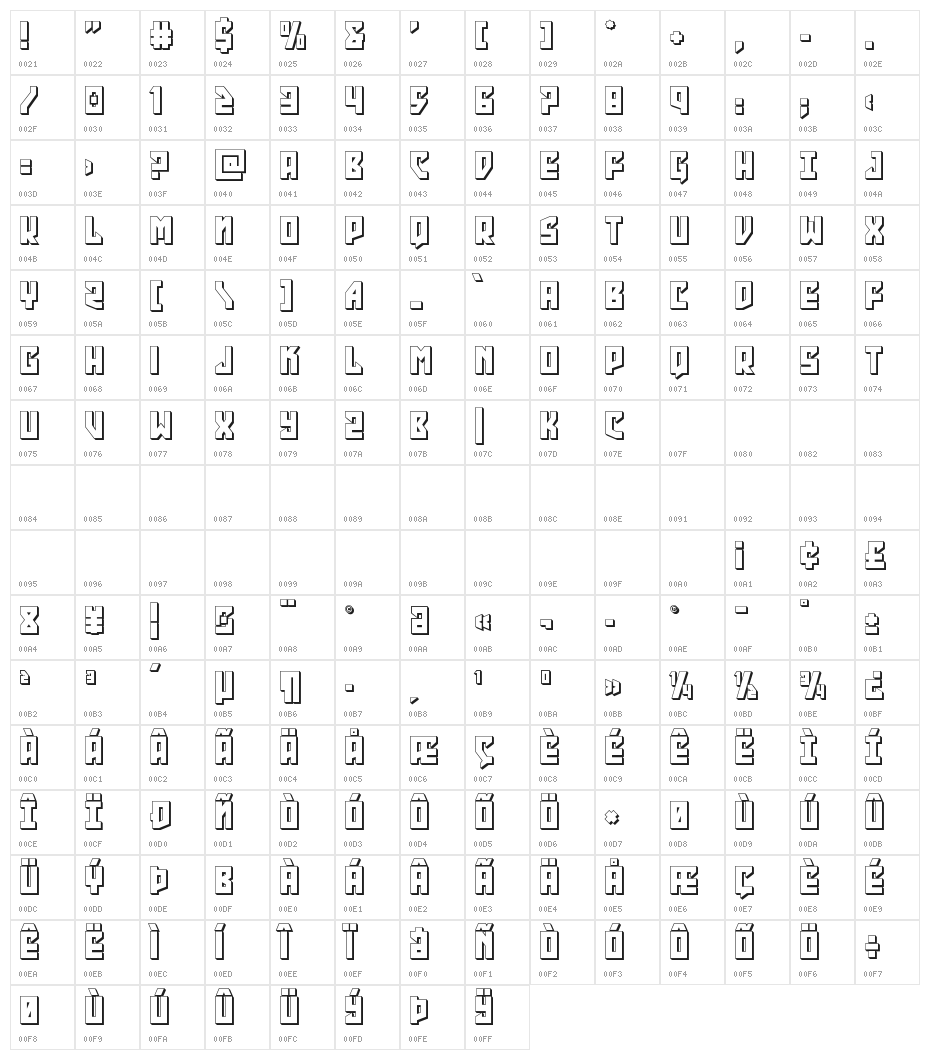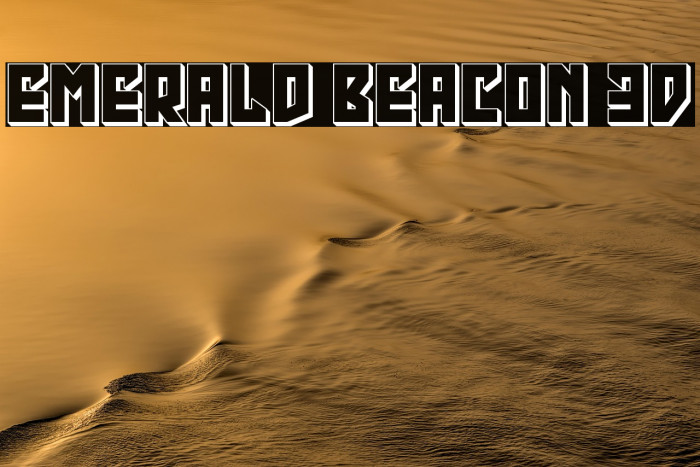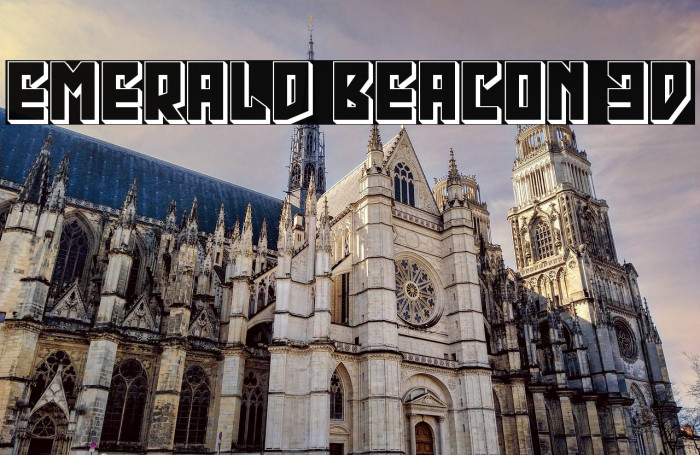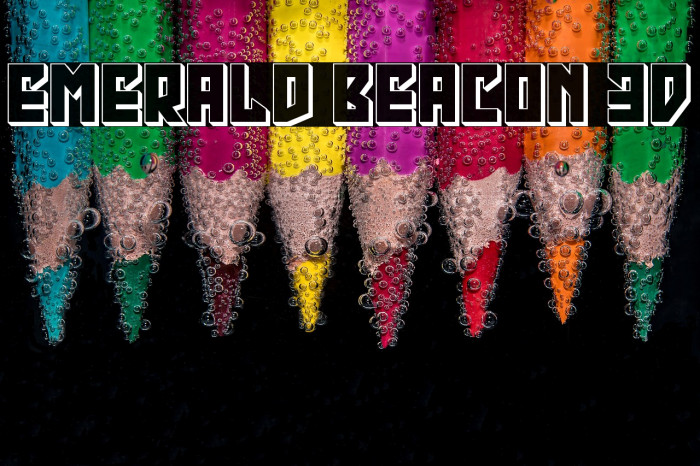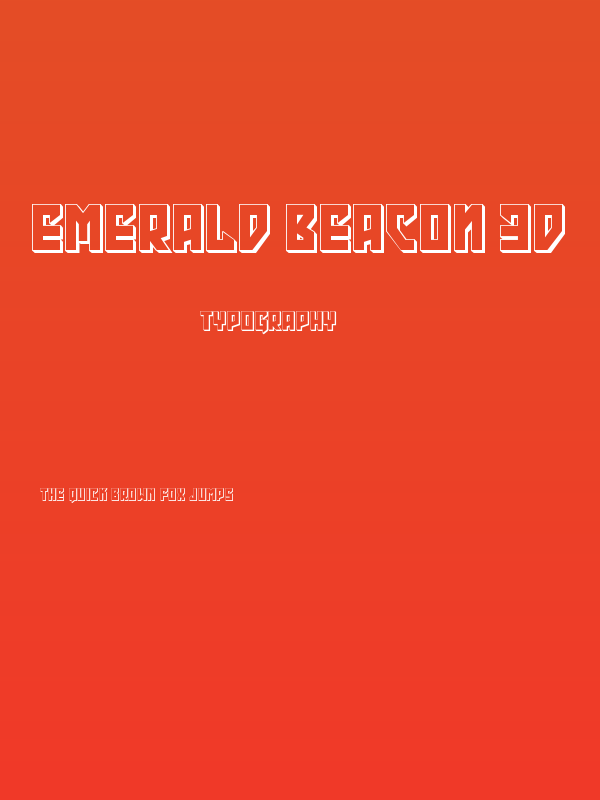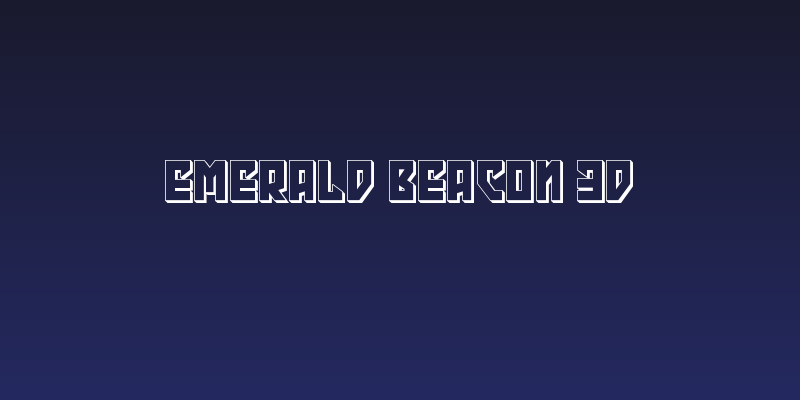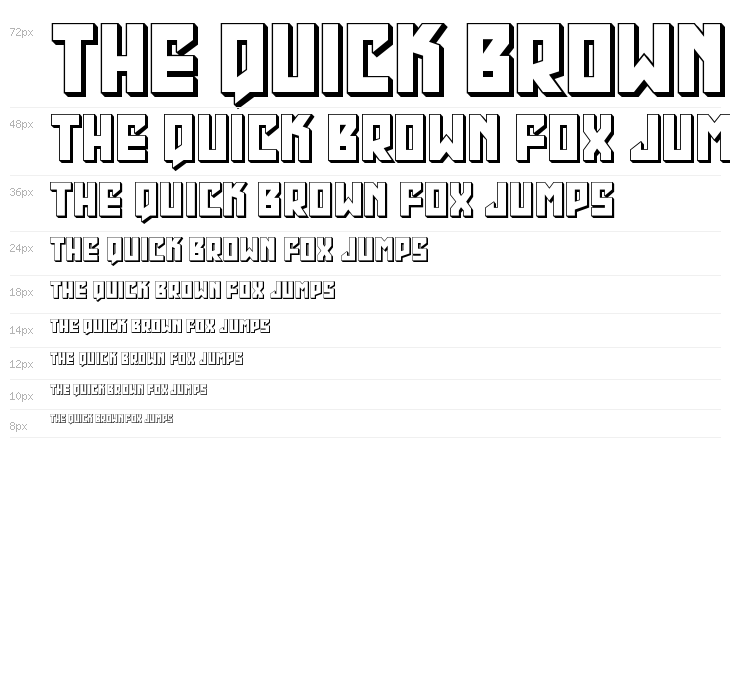
Emerald Beacon 3D Font
Emerald Beacon 3D Description
This font features a bold, geometric design with a three-dimensional effect that gives each character a distinct shadow, enhancing its visual impact. The uppercase letters are blocky and angular, with sharp edges and a consistent stroke width that conveys strength and modernity. The lowercase letters maintain the same structural integrity, ensuring uniformity across the typeface. Numbers and special characters are crafted with the same attention to detail, making them stand out with their bold outlines and shadowed appearance. This font is ideal for projects that require a strong, eye-catching display typeface.